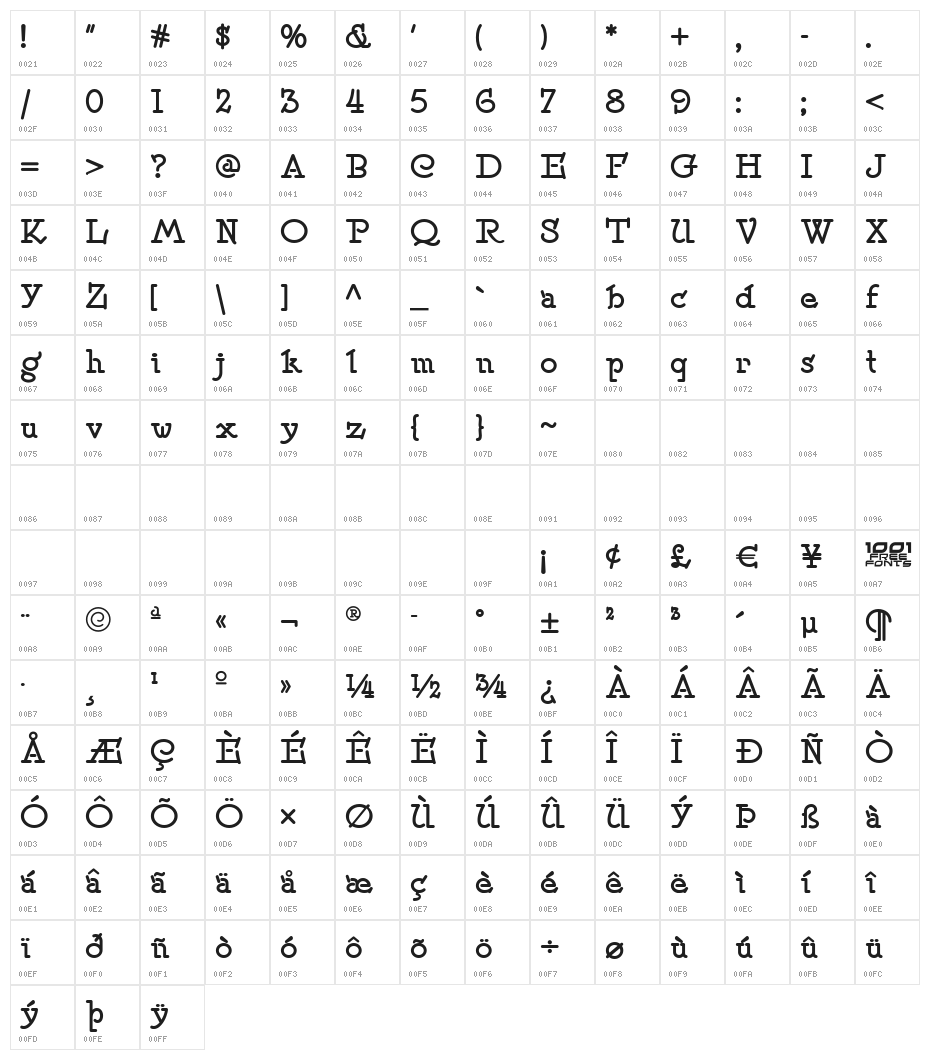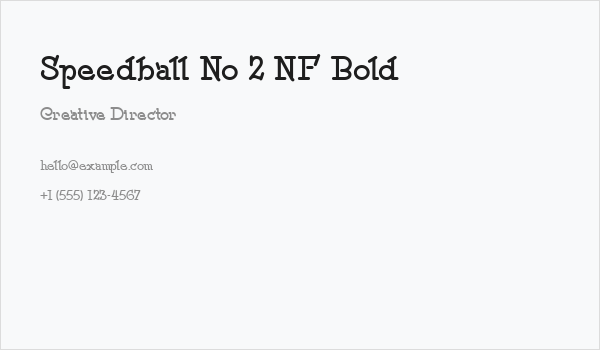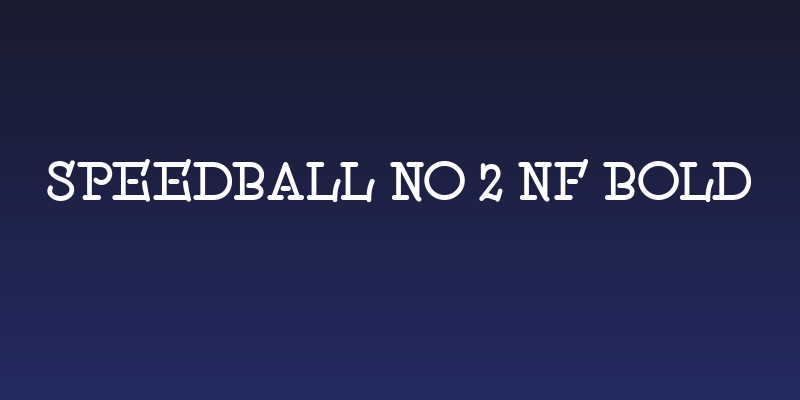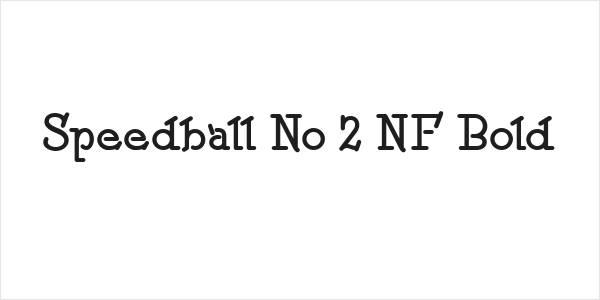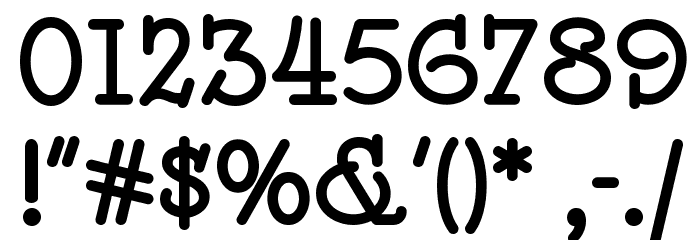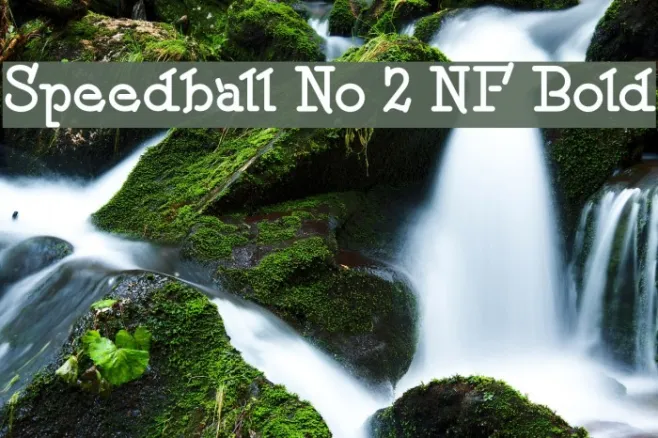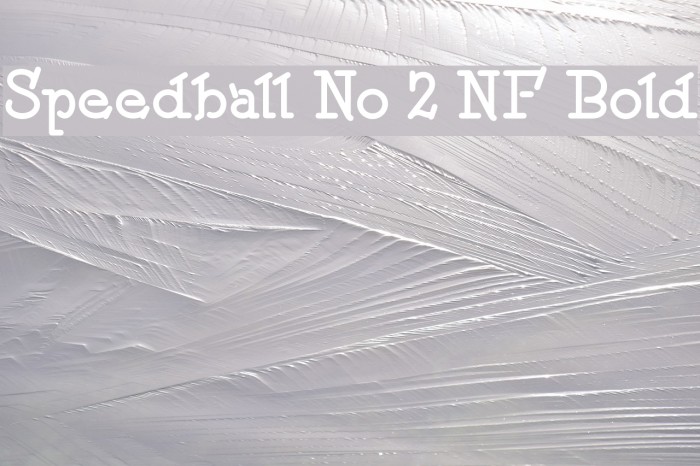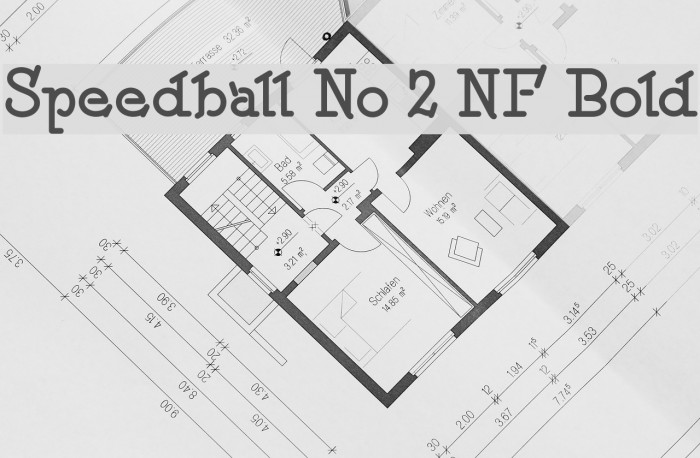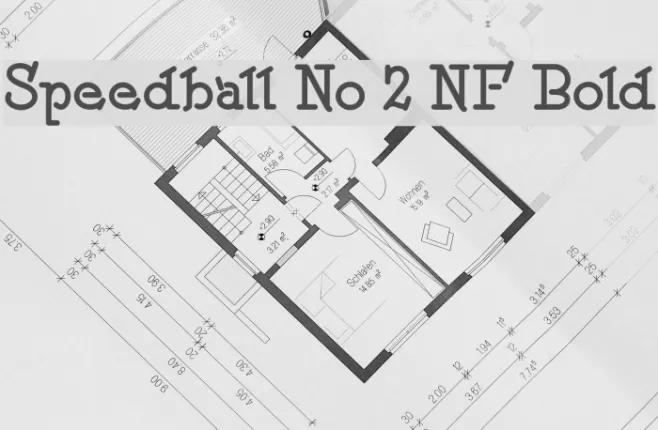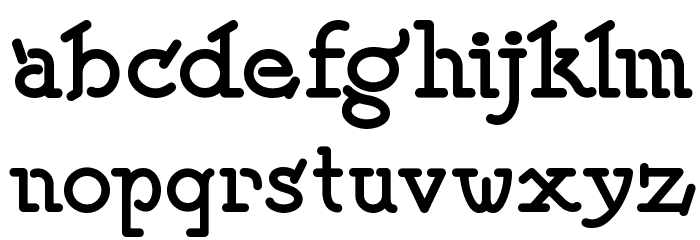
Speedball No 2 NF Bold Font
Speedball No 2 NF Bold Description
This font features a bold and playful style with a unique blend of rounded and angular elements. The uppercase letters exhibit a strong presence with their thick strokes and slight serifs, while the lowercase letters maintain a consistent weight and rounded forms, adding a touch of softness. The numerals are bold and clear, ensuring readability. Special characters are designed with the same boldness, making them stand out effectively. The overall design is reminiscent of vintage signage, offering a nostalgic yet modern appeal.
| Overall Style | Vintage |
| Proposed Projects | Ideal for retro-themed posters, branding, packaging, and signage that require a bold and playful touch. |